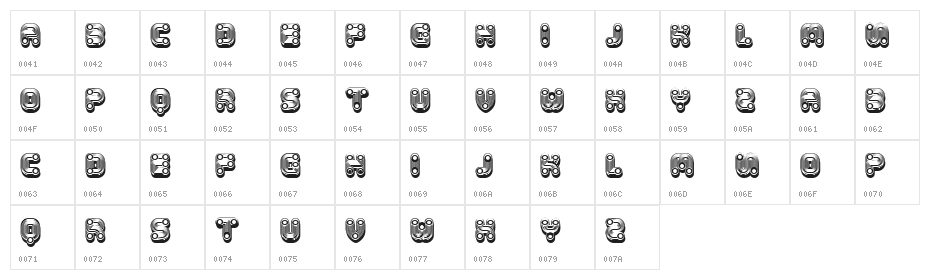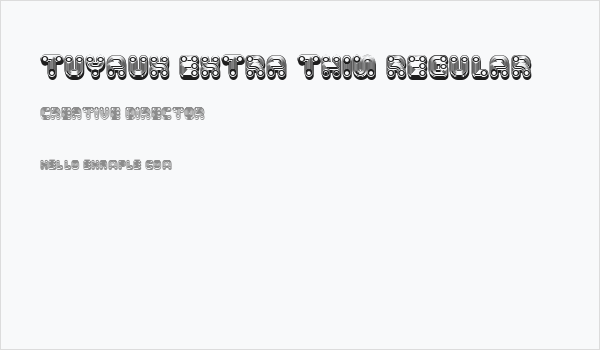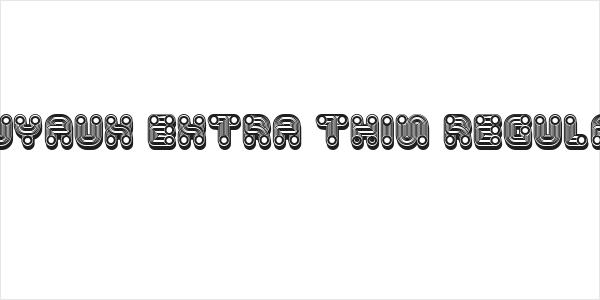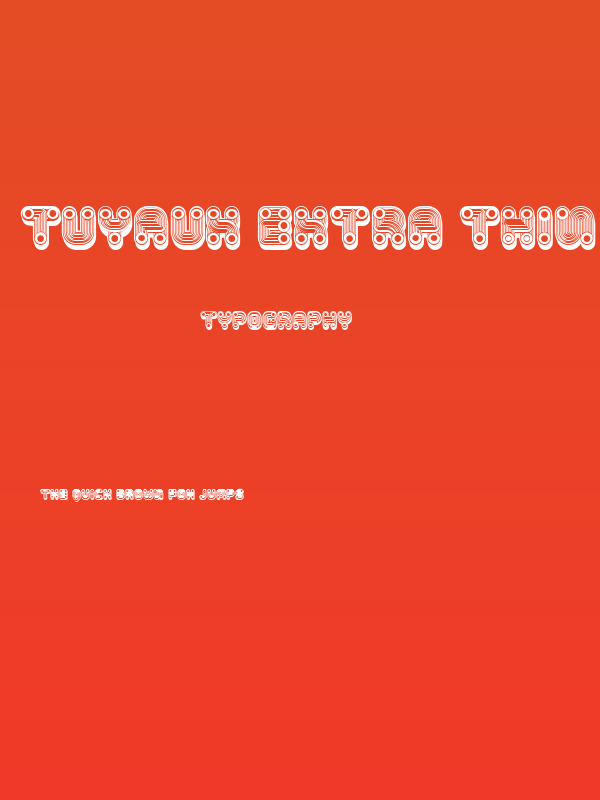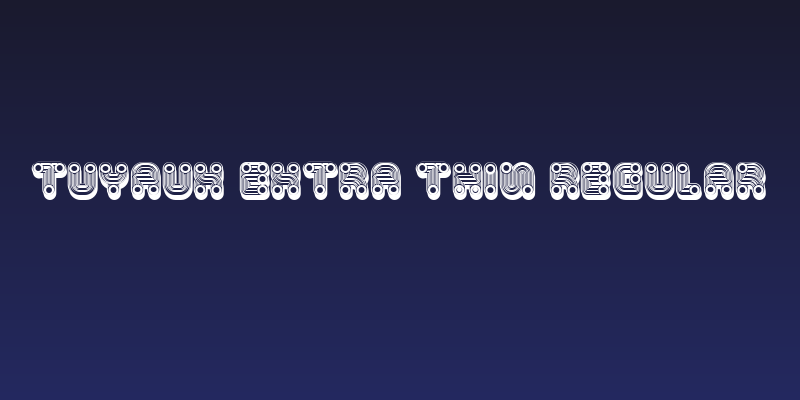
Tuyaux Extra Thin Regular Font
Tuyaux Extra Thin Regular Description
This font features a highly decorative and intricate design, characterized by multiple concentric lines forming each letter. The style is bold and eye-catching, with a unique geometric pattern that gives it a futuristic and playful appearance. The letters are constructed with a series of parallel lines that create a sense of depth and movement. This font is ideal for projects that require a standout and artistic typeface, such as posters, album covers, or branding for creative industries. Its complex design makes it less suitable for body text but perfect for headlines or logos where visual impact is crucial.
| Overall Style | Futuristic, Playful |
| Proposed Projects | Ideal for posters, album covers, creative branding, and logos. |